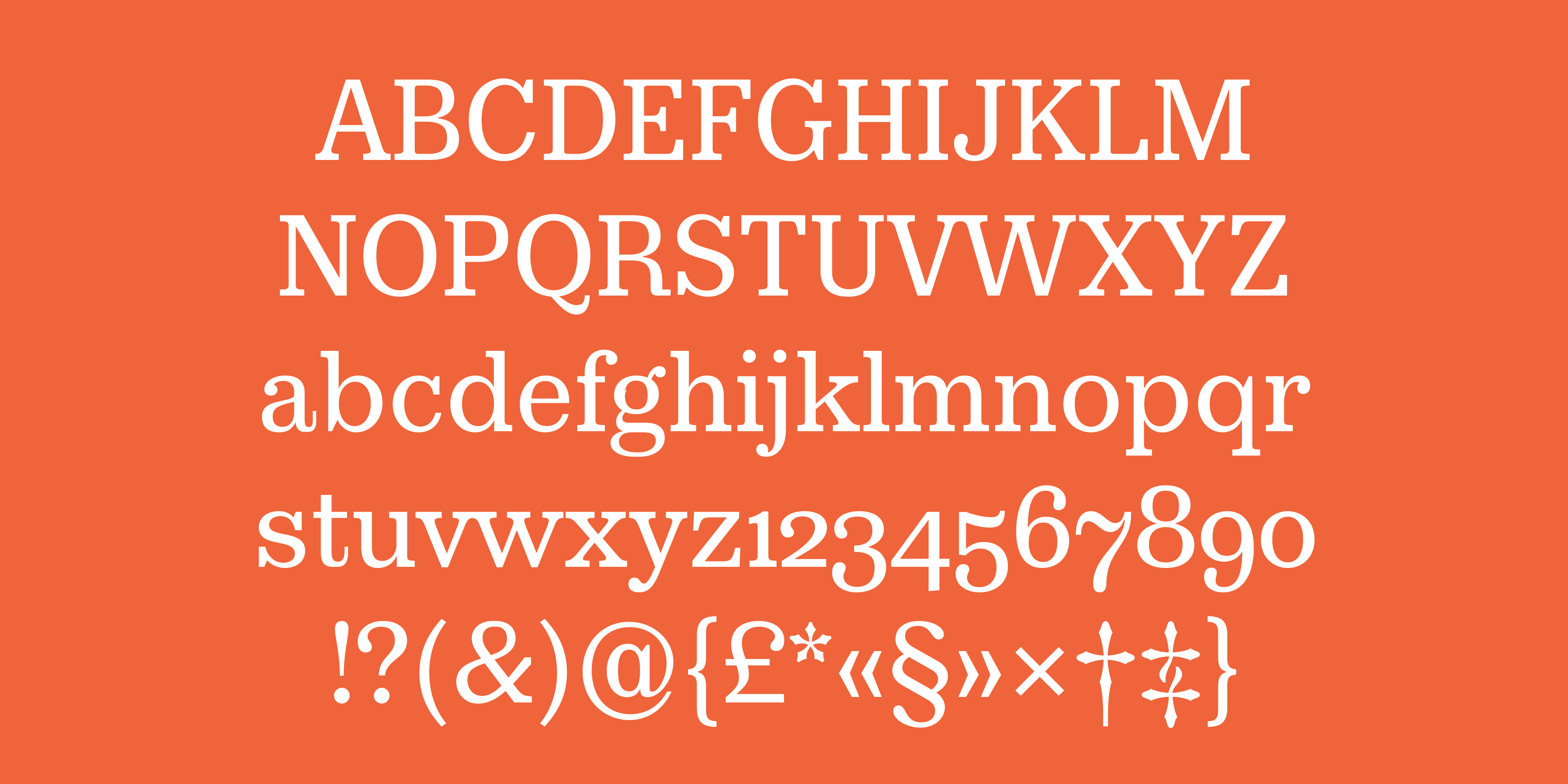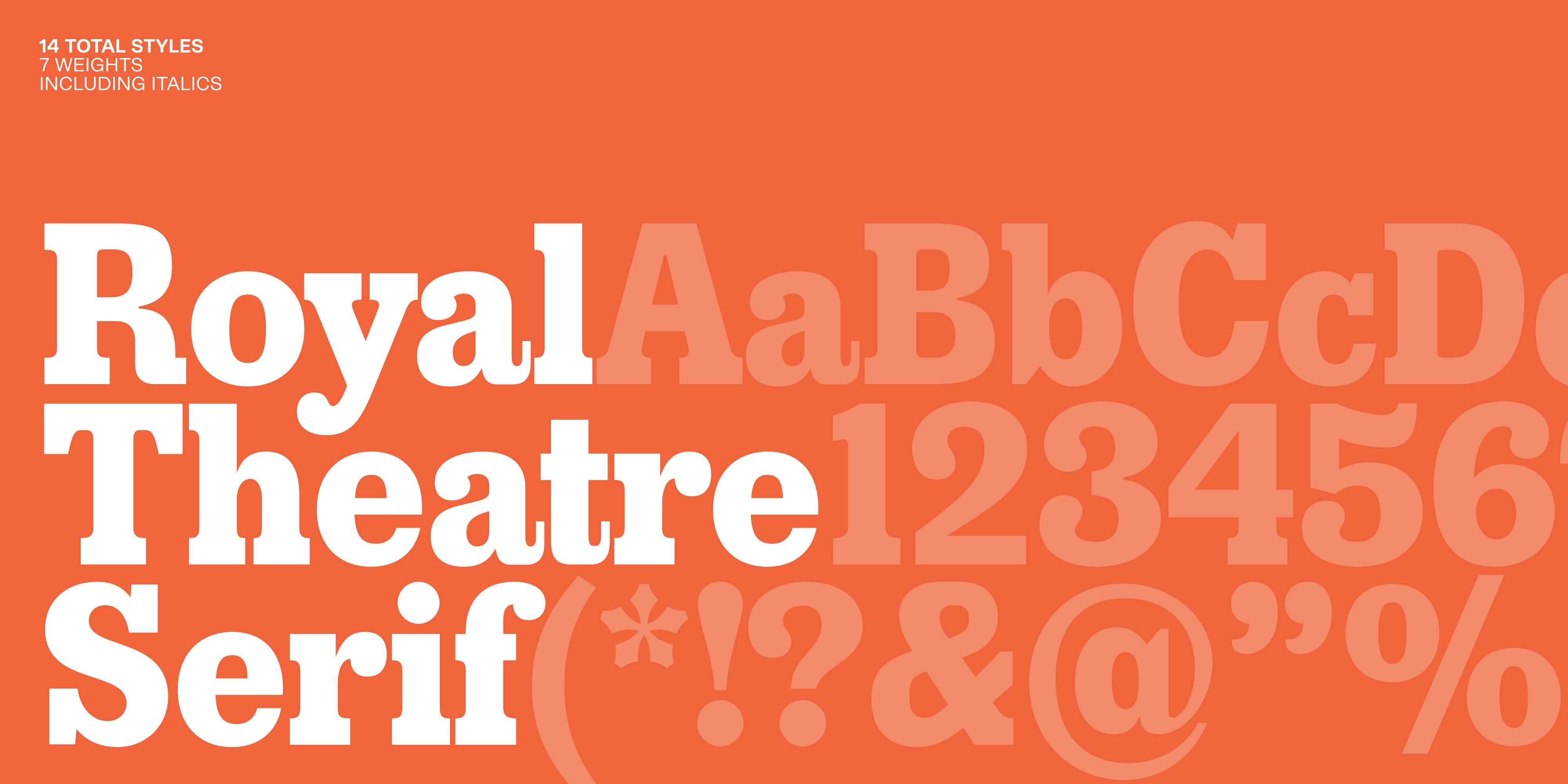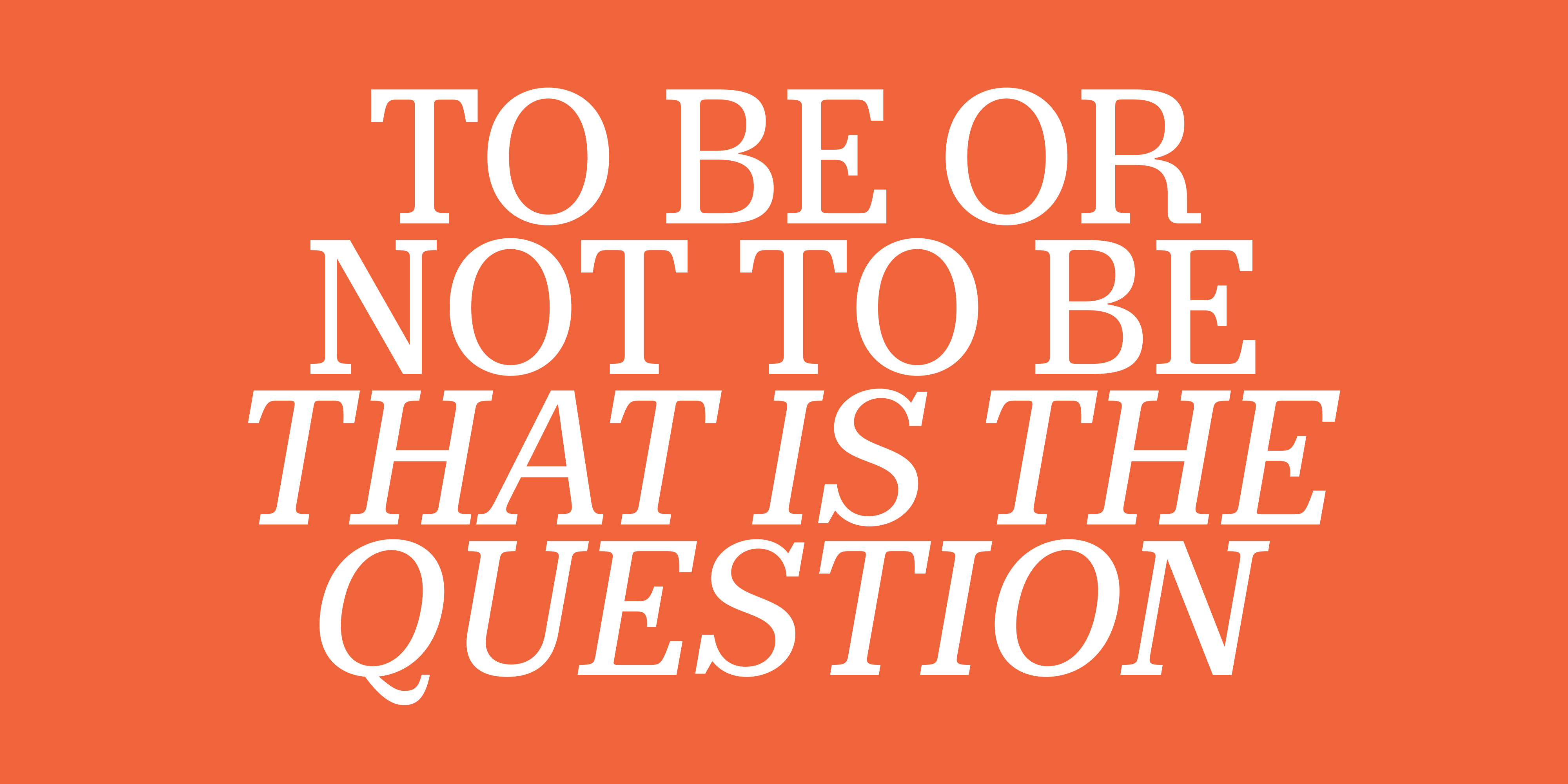
The Danish Royal Theatre holds both historic and theatric value to the city of Copenhagen. First serving as a venue for the King it has seen many faces since its construction in 1874. In 2005 Playtype designed the first version of the type family, used for many years exclusively by the Royal Theatre. Now the story continues into the present day with the typeface showcasing itself as a fully fledged family. Noting the past and the nuances of performances within the acclaimed institution. The family is available in 7 weights from Extralight to Black with accompanying italics, in both sans and serif. It is evocative of every theatrical genre, changing mood through each weight. It works best when given a topic to speak about. From the ballet-inspired italics to the opera-like nature in bold, with each cut being as descriptive as the 19th century posters that inspired them.